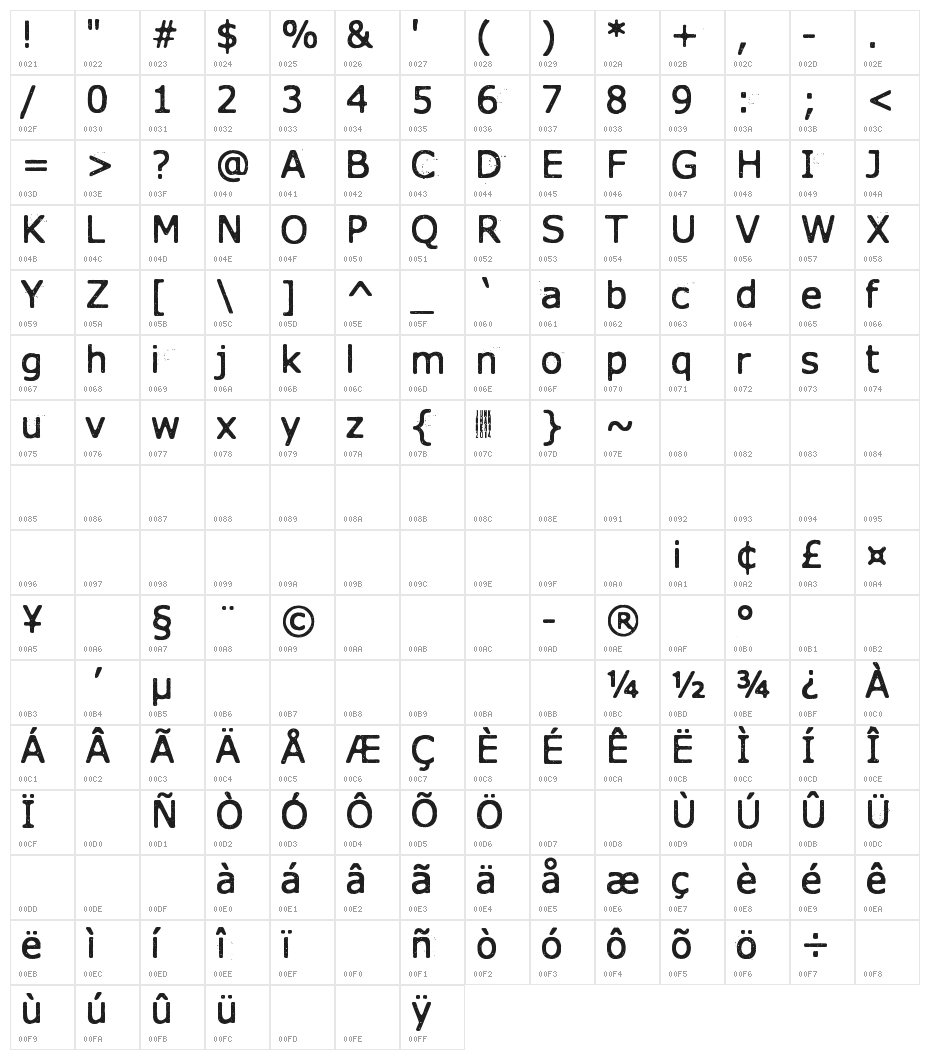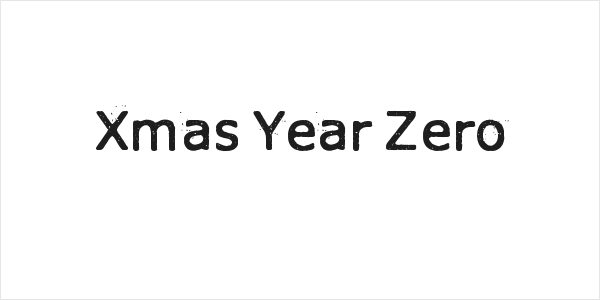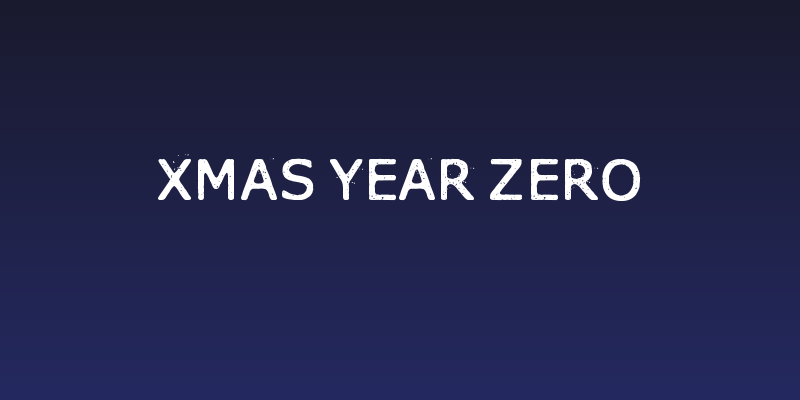
Xmas Year Zero Font
Xmas Year Zero Description
This font features a distressed, textured appearance that gives it a vintage and worn look. The characters are bold and rounded, with a consistent thickness throughout, creating a uniform and cohesive style. The texture adds a unique, handcrafted feel, making it ideal for projects that require a rustic or retro aesthetic. The uppercase and lowercase letters maintain a balanced proportion, while the numerals and special characters are clearly defined, ensuring readability. This font's distinct style makes it suitable for creative and artistic designs.
| Proposed Projects | Ideal for vintage-themed posters, rustic branding, retro packaging, and artistic designs. |